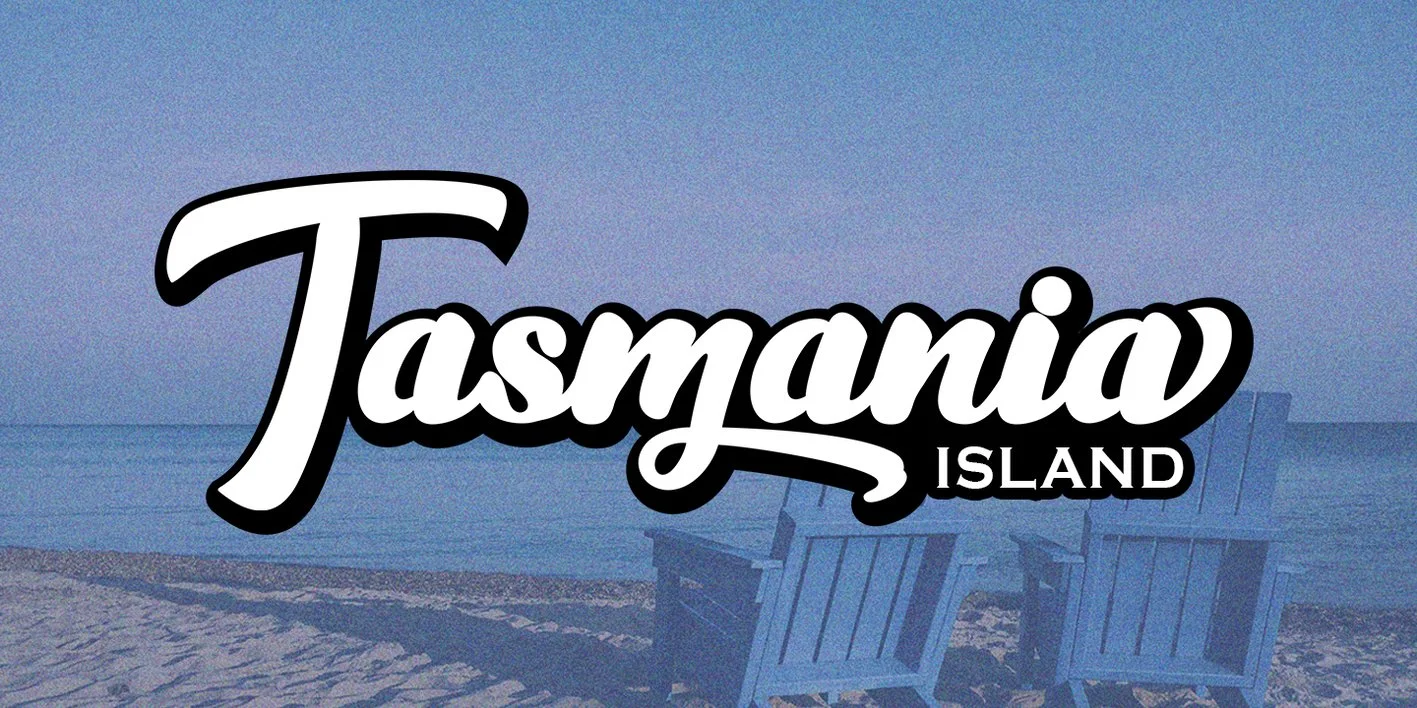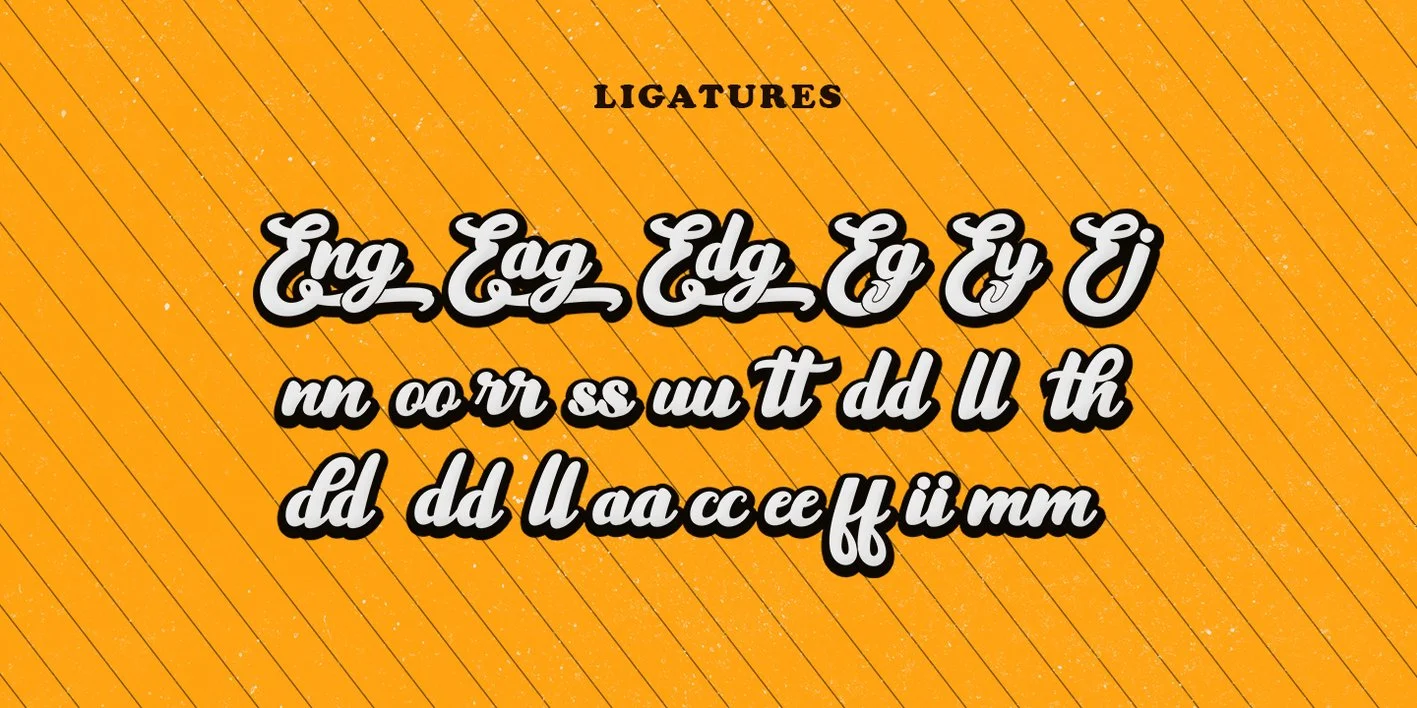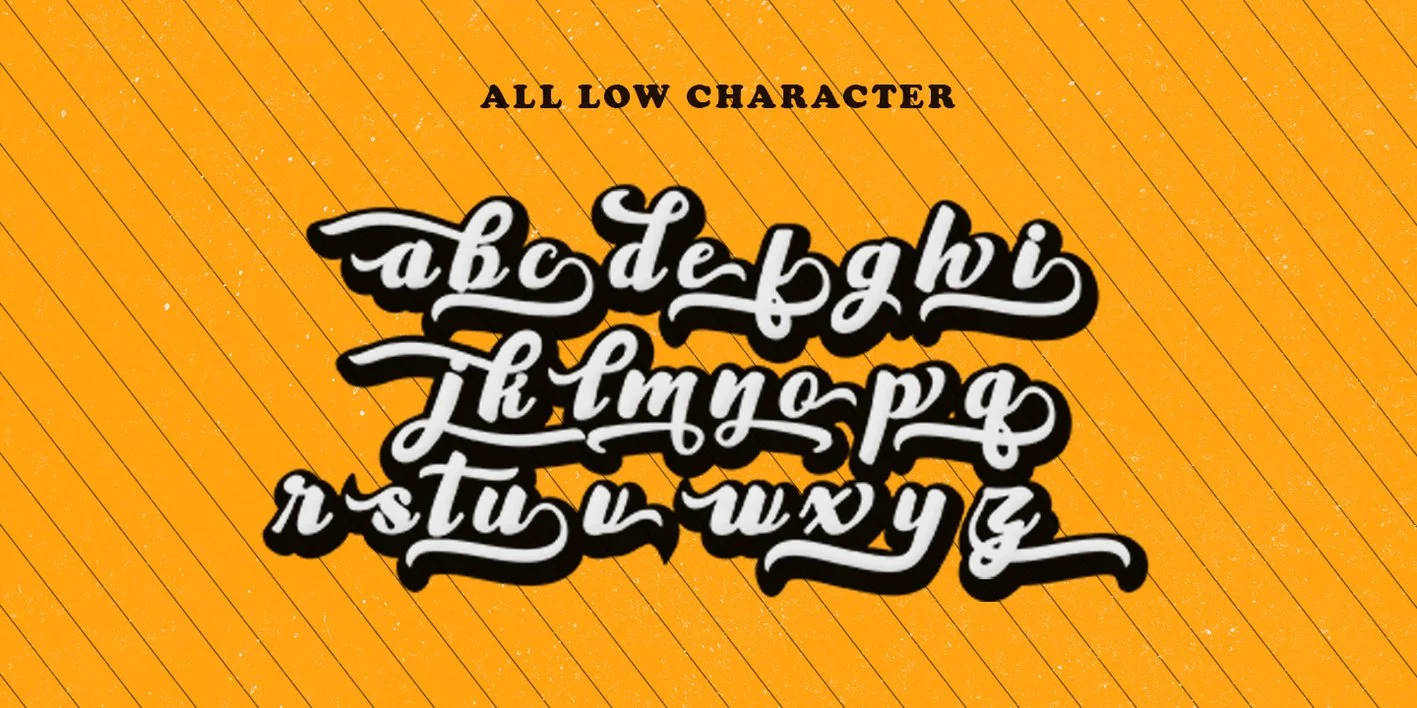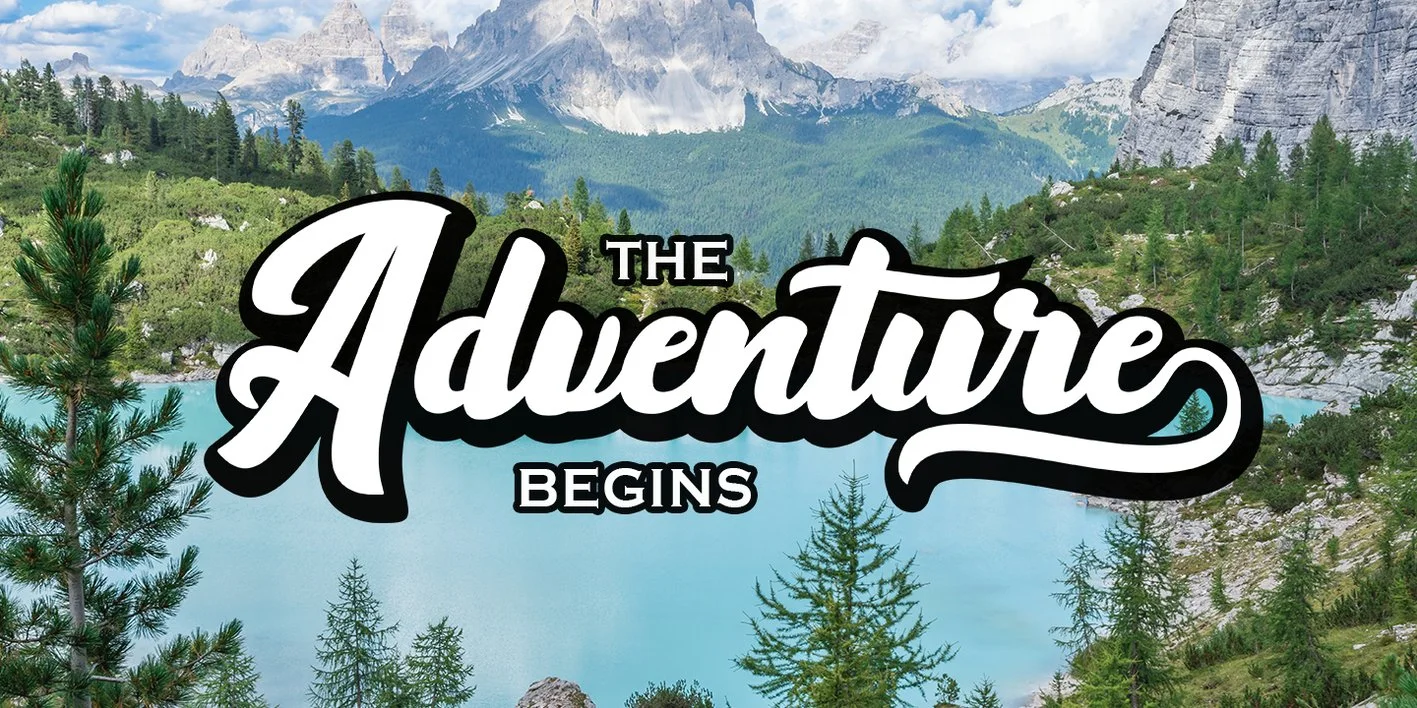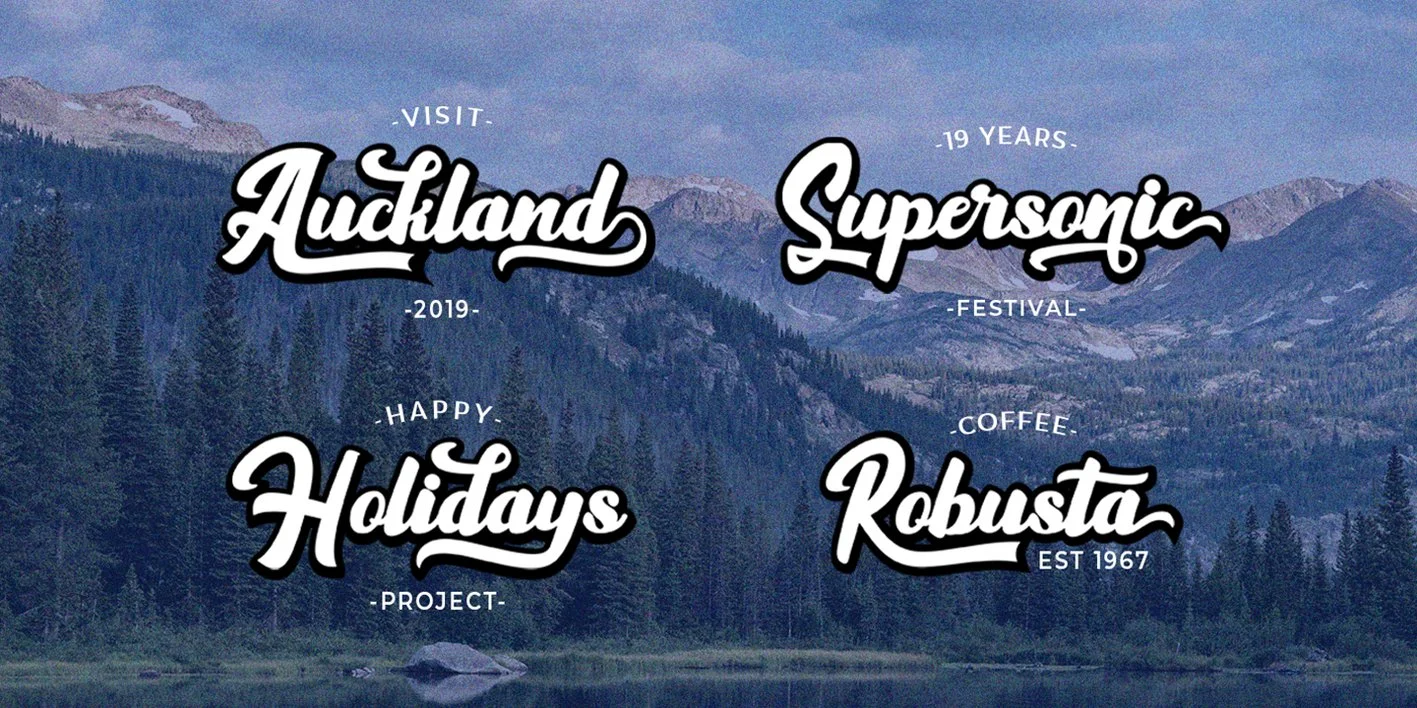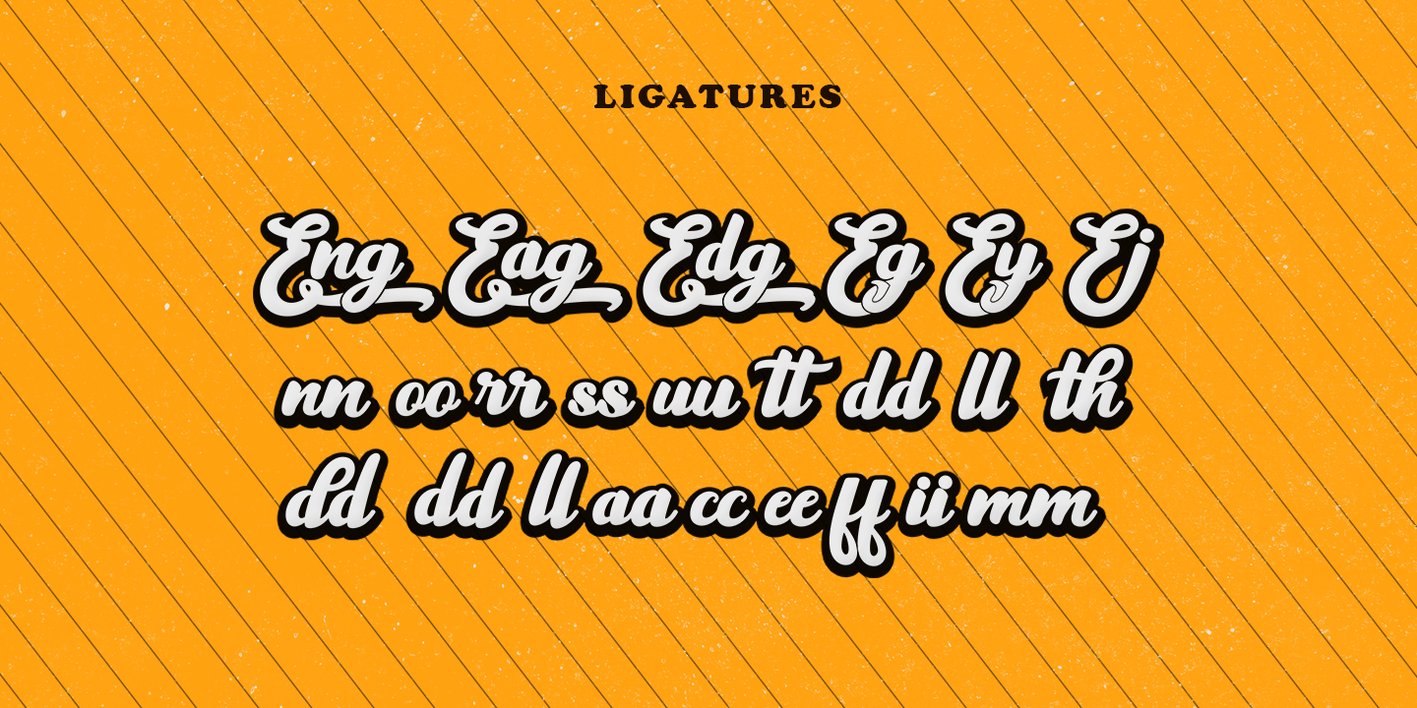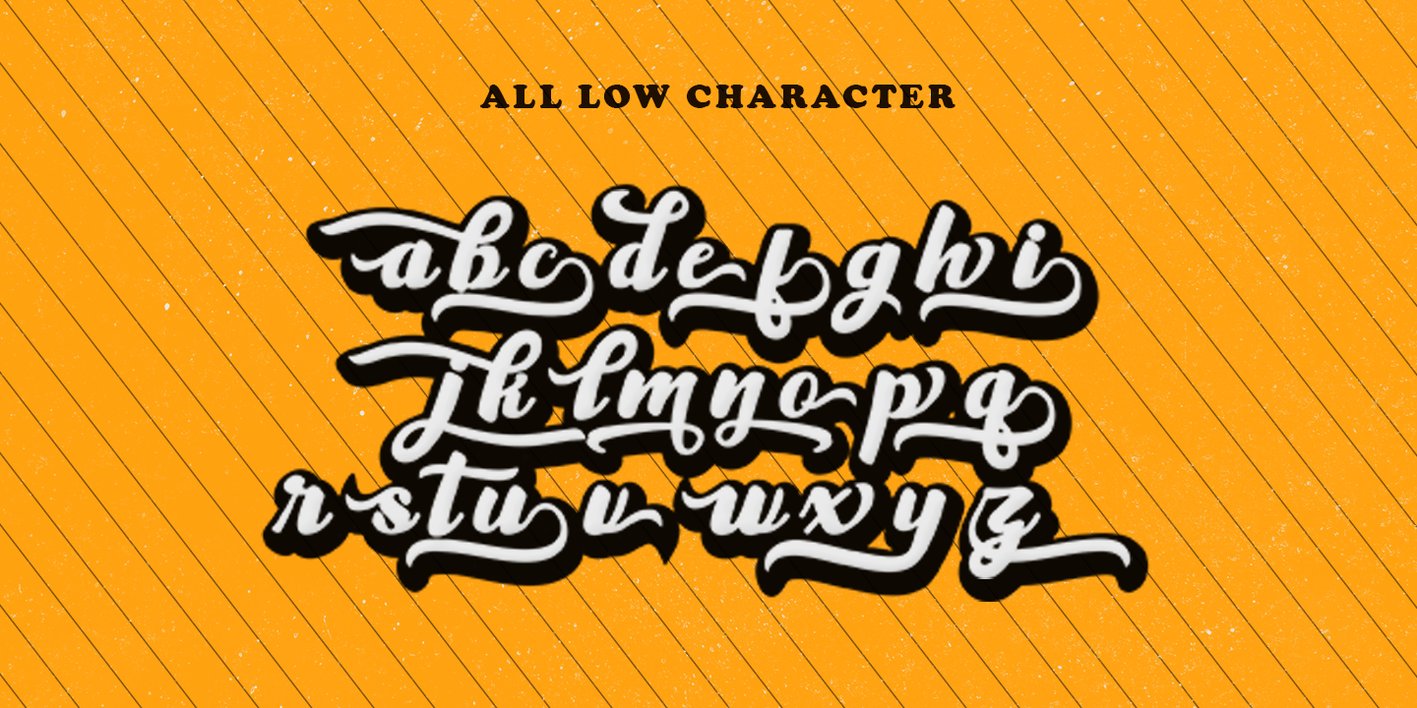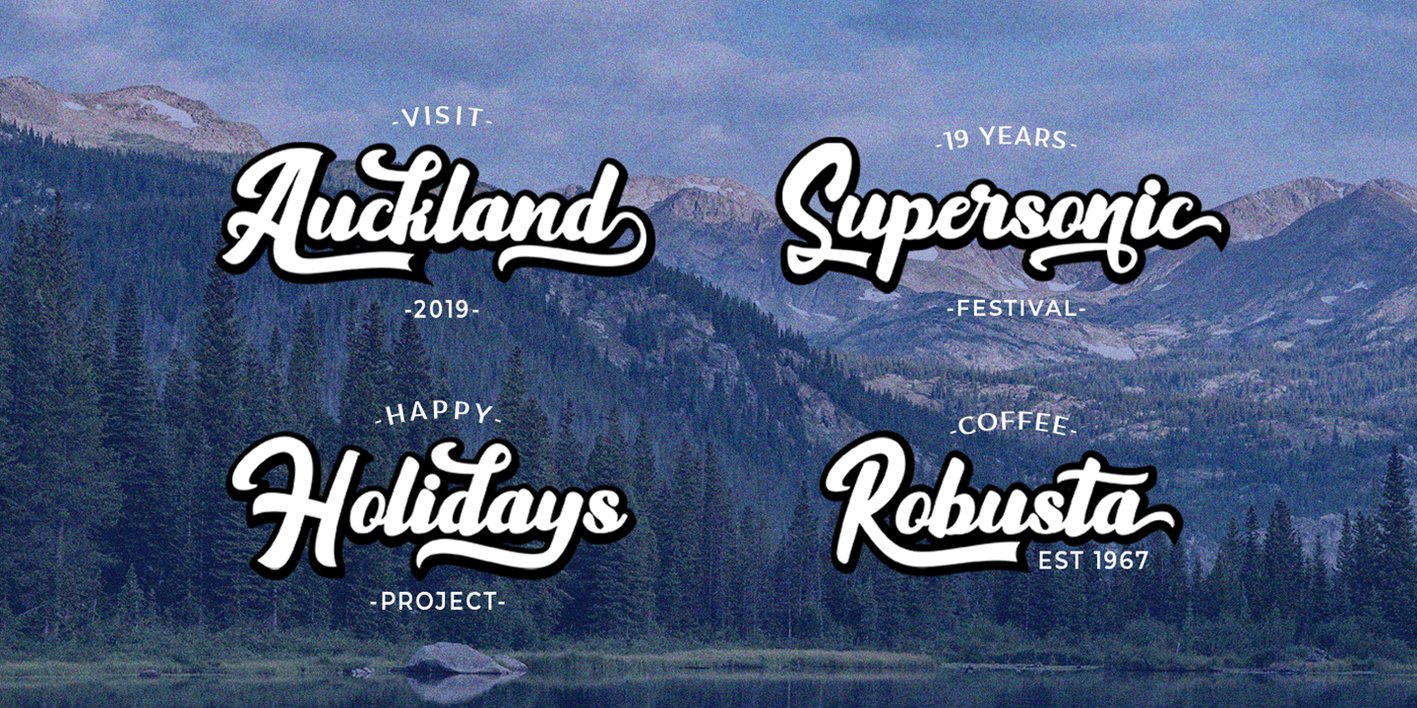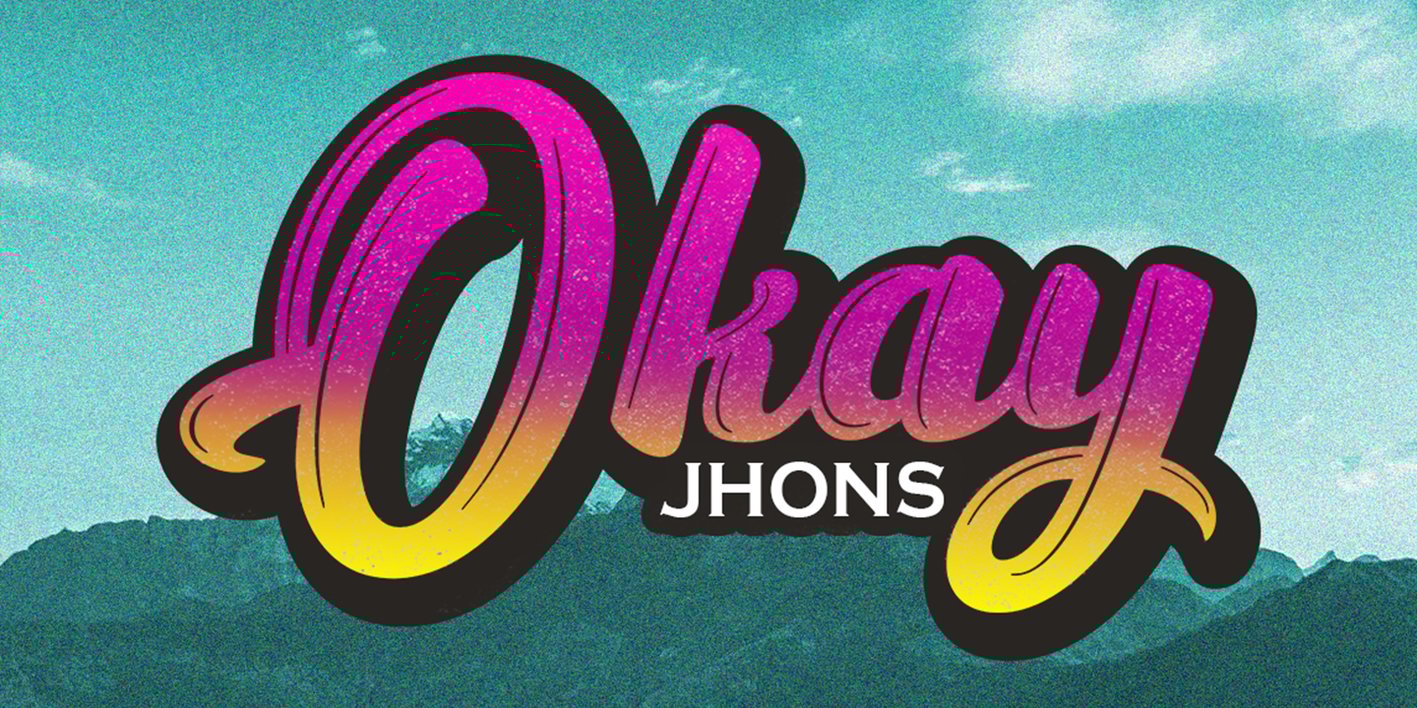
England Script Font
England Script Font is ideal for luxury wedding invitations, royal event announcements, high-end tea packaging, British heritage branding, elegant restaurant menus, aristocratic family crests, premium stationery design, formal certificates, vintage hotel signage, and sophisticated lifestyle brands. This distinguished typeface brings timeless British elegance to any prestigious design project.
England Script Font is exciting because it embodies the refined elegance and sophisticated penmanship traditions of English aristocracy, featuring graceful flourishes and aristocratic character that instantly conveys prestige, heritage, and distinguished taste. Its regal aesthetic creates an immediate sense of luxury and exclusivity.
The England Script Font family includes Regular weight with ornamental swashes, decorative capitals, elegant ligatures, and traditional English calligraphy elements that enhance the aristocratic appearance, providing designers with comprehensive tools for creating authentic British-inspired luxury typography.
England Script Font represents the pinnacle of English calligraphic tradition, combining centuries of penmanship heritage with contemporary functionality. This exceptional typeface has gained popularity among luxury brands and high-end service providers for its ability to communicate sophistication, tradition, and exclusivity through elegant handwritten aesthetics.
Design professionals appreciate England Script Font for its exceptional ability to evoke British heritage and aristocratic refinement in modern applications. The font's flowing letterforms and carefully crafted connections create a sense of handwritten authenticity that resonates with audiences seeking premium experiences and traditional craftsmanship values.
The cultural significance of England Script Font extends beyond mere decoration, representing the rich tradition of English penmanship and formal correspondence that defined British society for centuries. Creative teams working on luxury hospitality, premium fashion, or heritage brands find this font particularly effective for establishing immediate connections with sophistication and cultural refinement.
Whether used for exclusive club memberships, luxury product packaging, or prestigious event materials, England Script Font delivers unparalleled elegance and cultural authenticity. Its aristocratic appeal and traditional British character make it an essential choice for brands that celebrate heritage, exclusivity, and timeless sophistication in their communications.